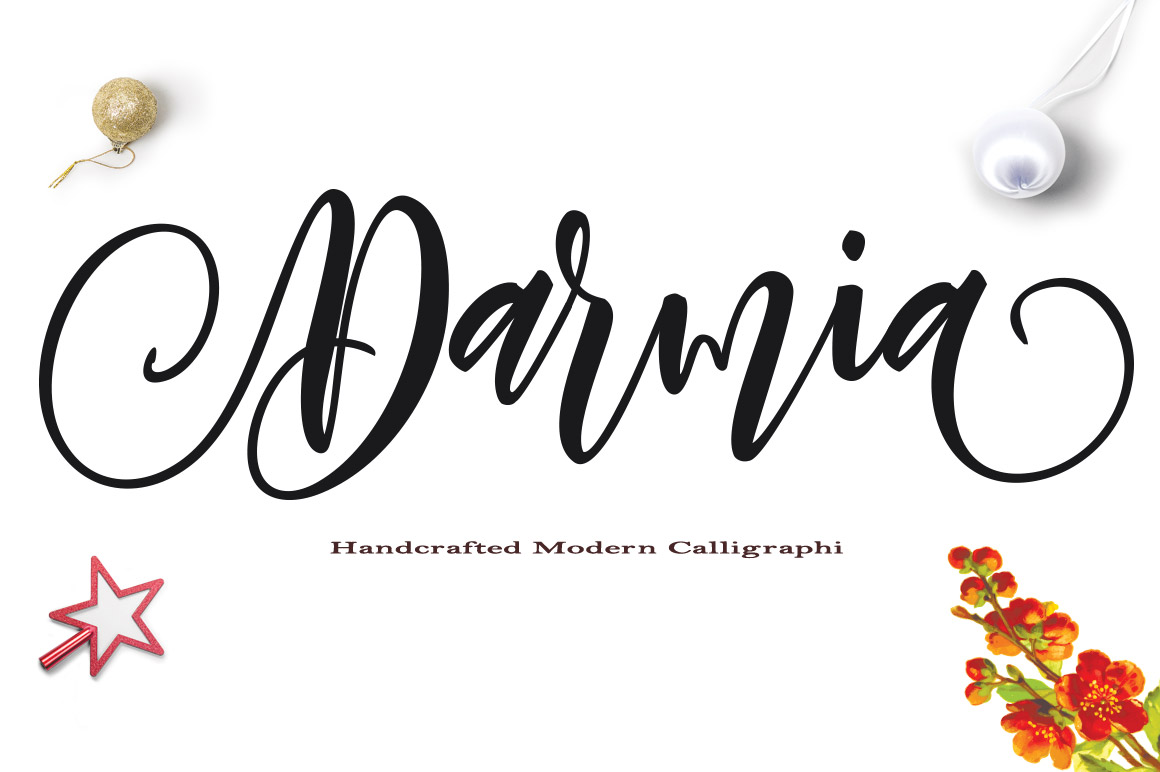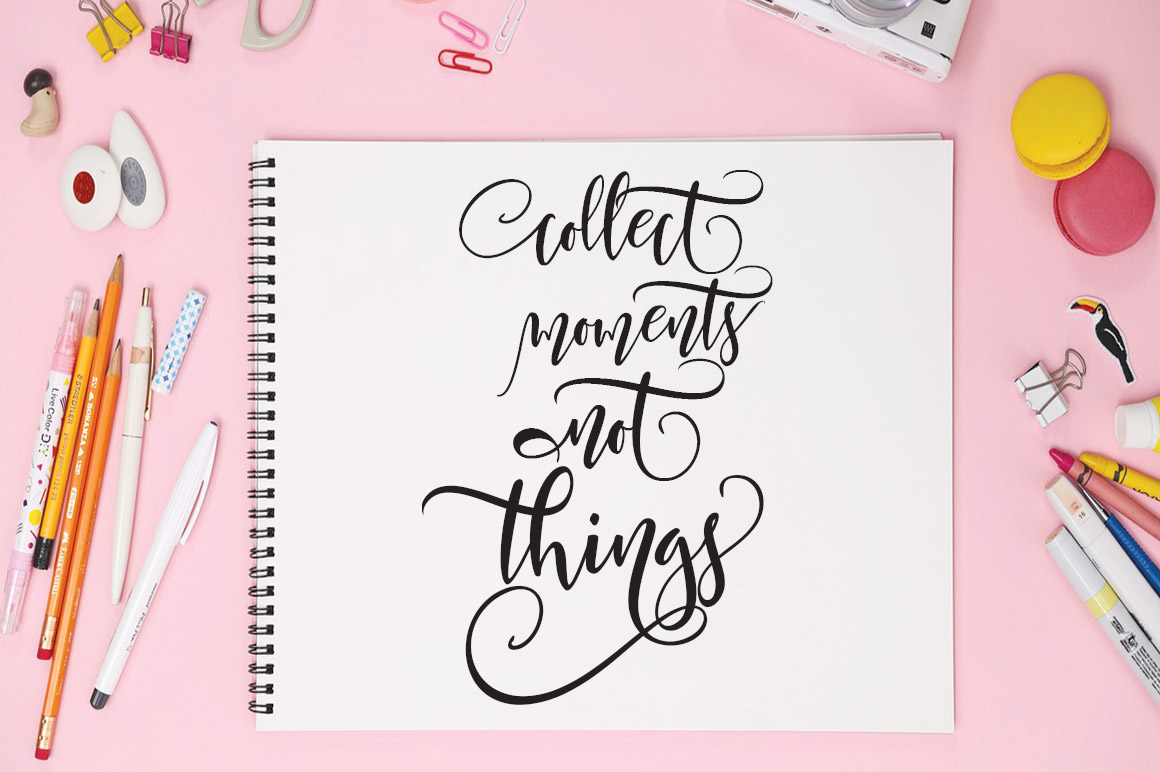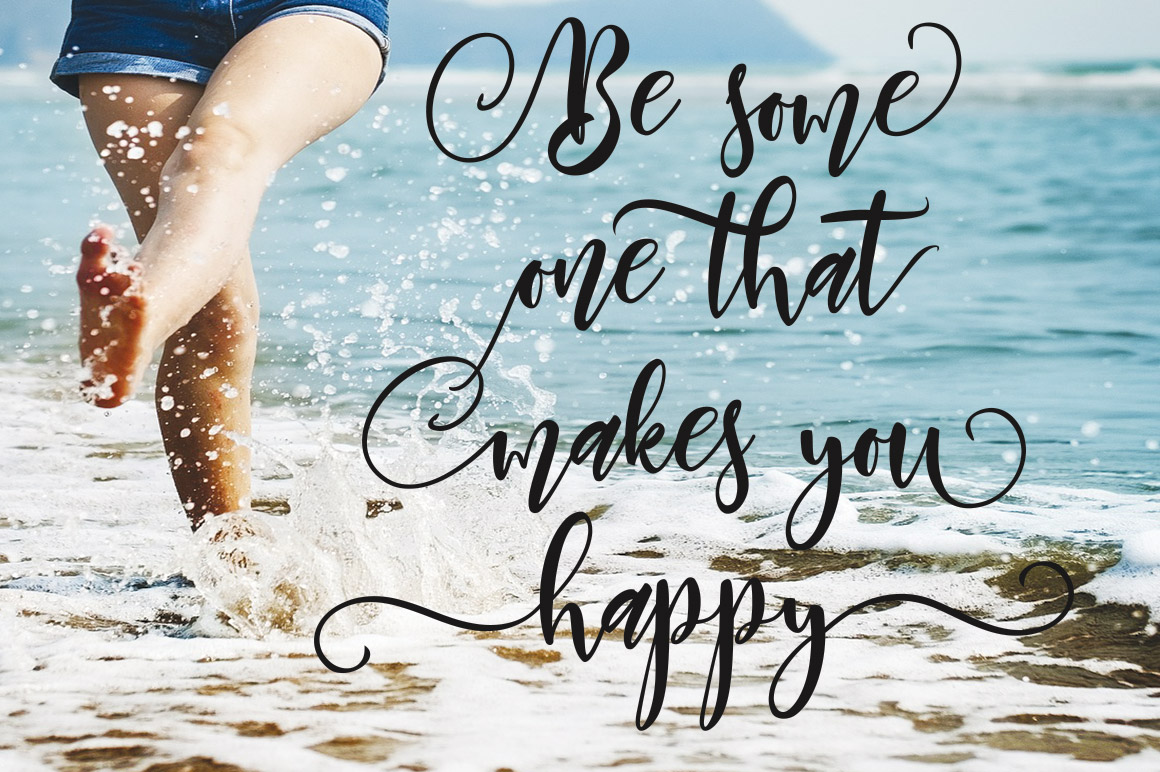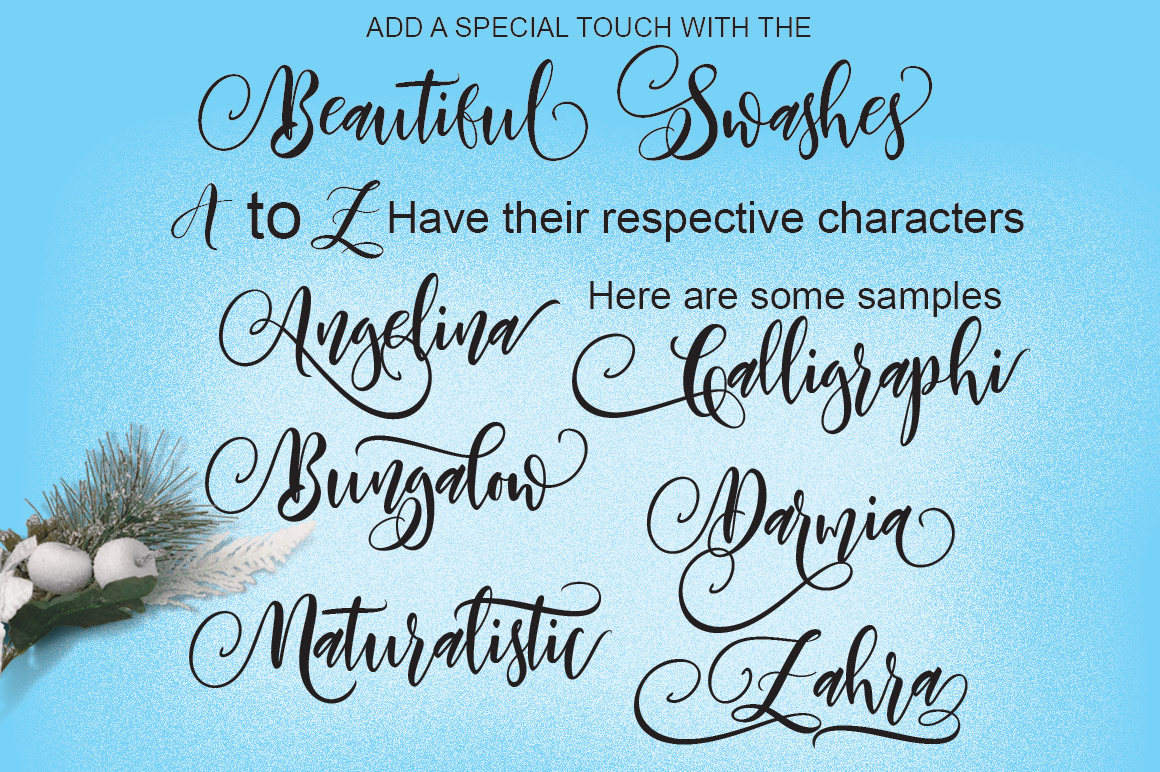
About Darmia Font
Never has it been easier to make tons of gorgeous typographic designs in a jiffy; Darmia is a script jam-packed with flourishes and additions to make each of your designs completely unique. Beautifully crafted, Darmia is a script font that packs a punch.